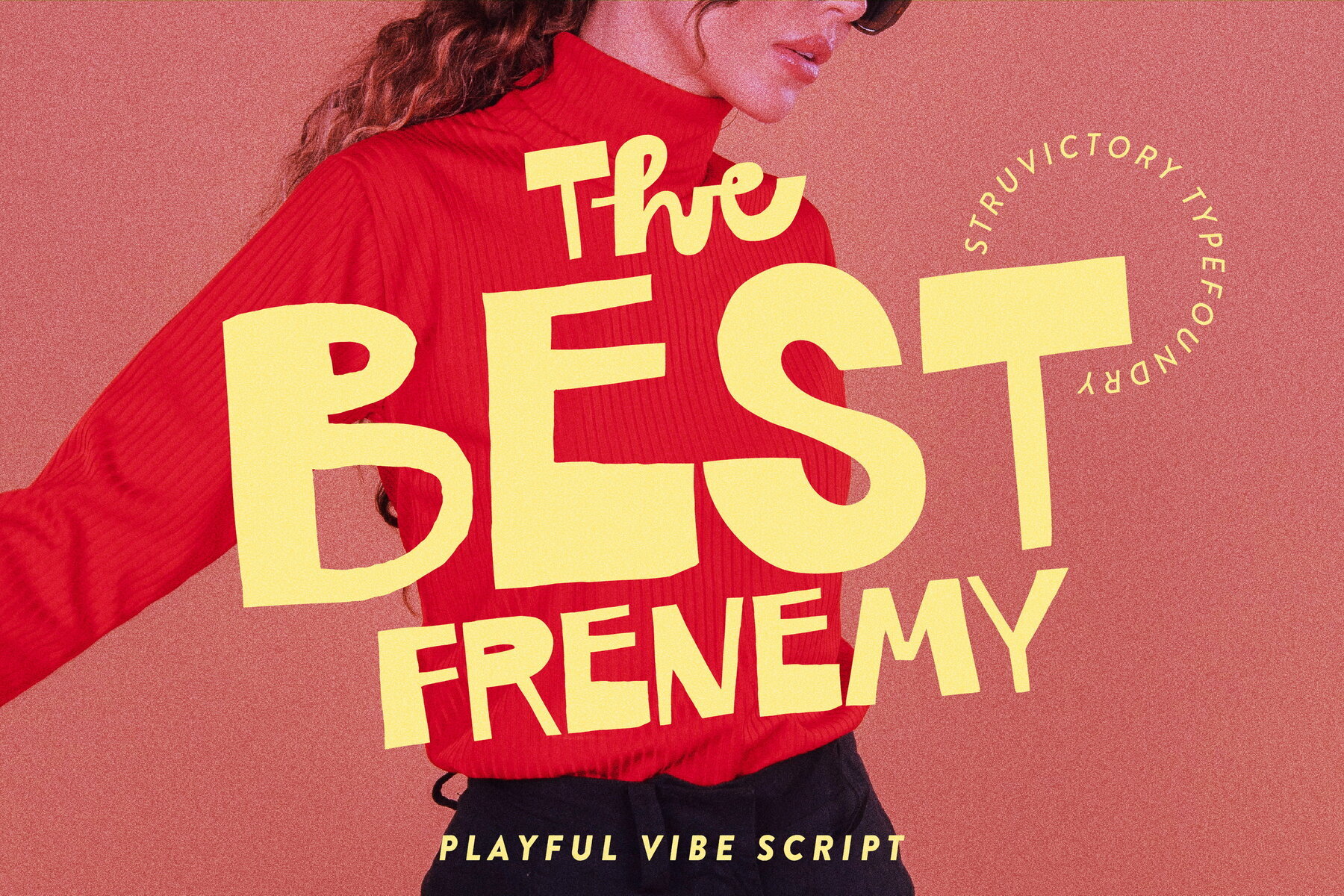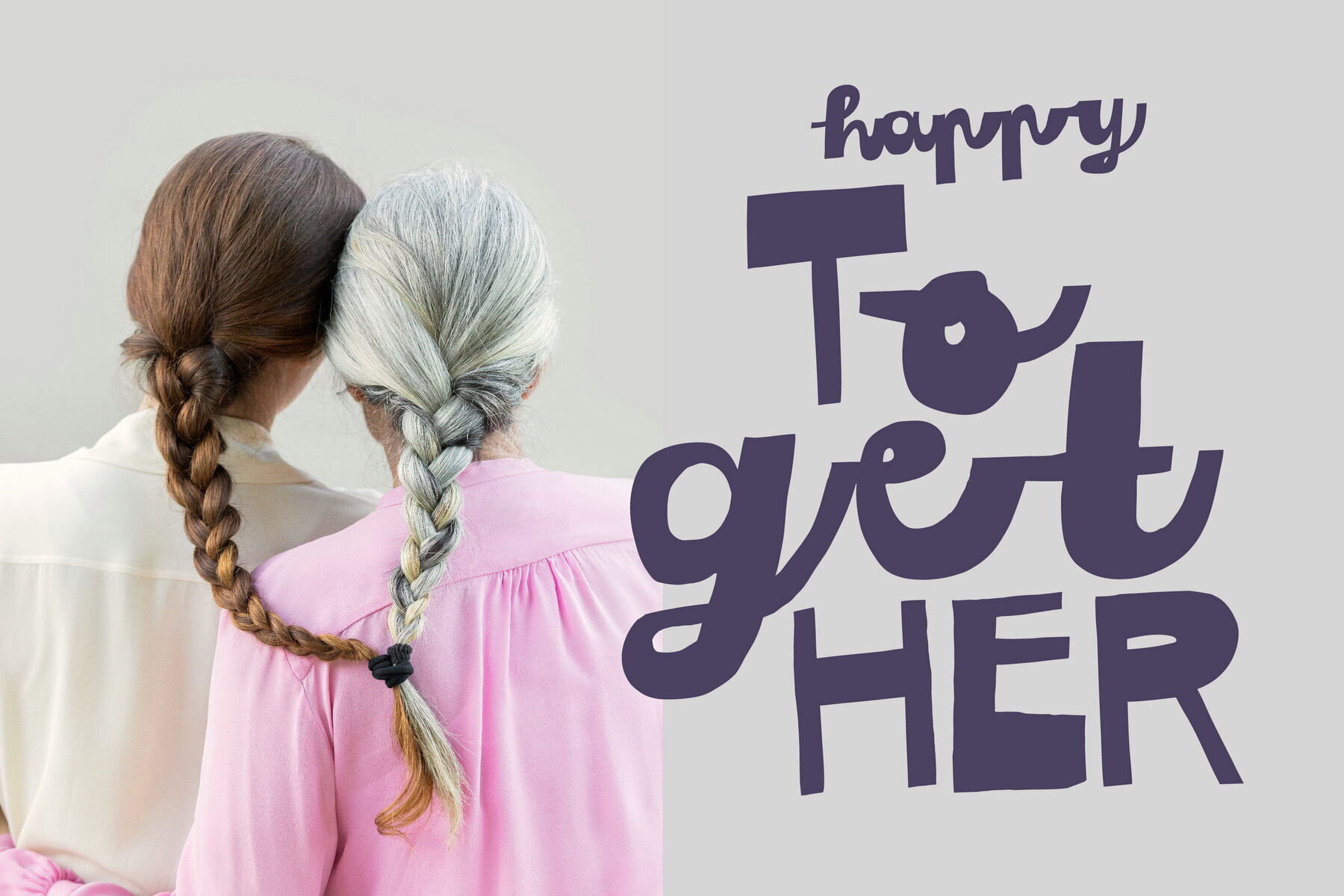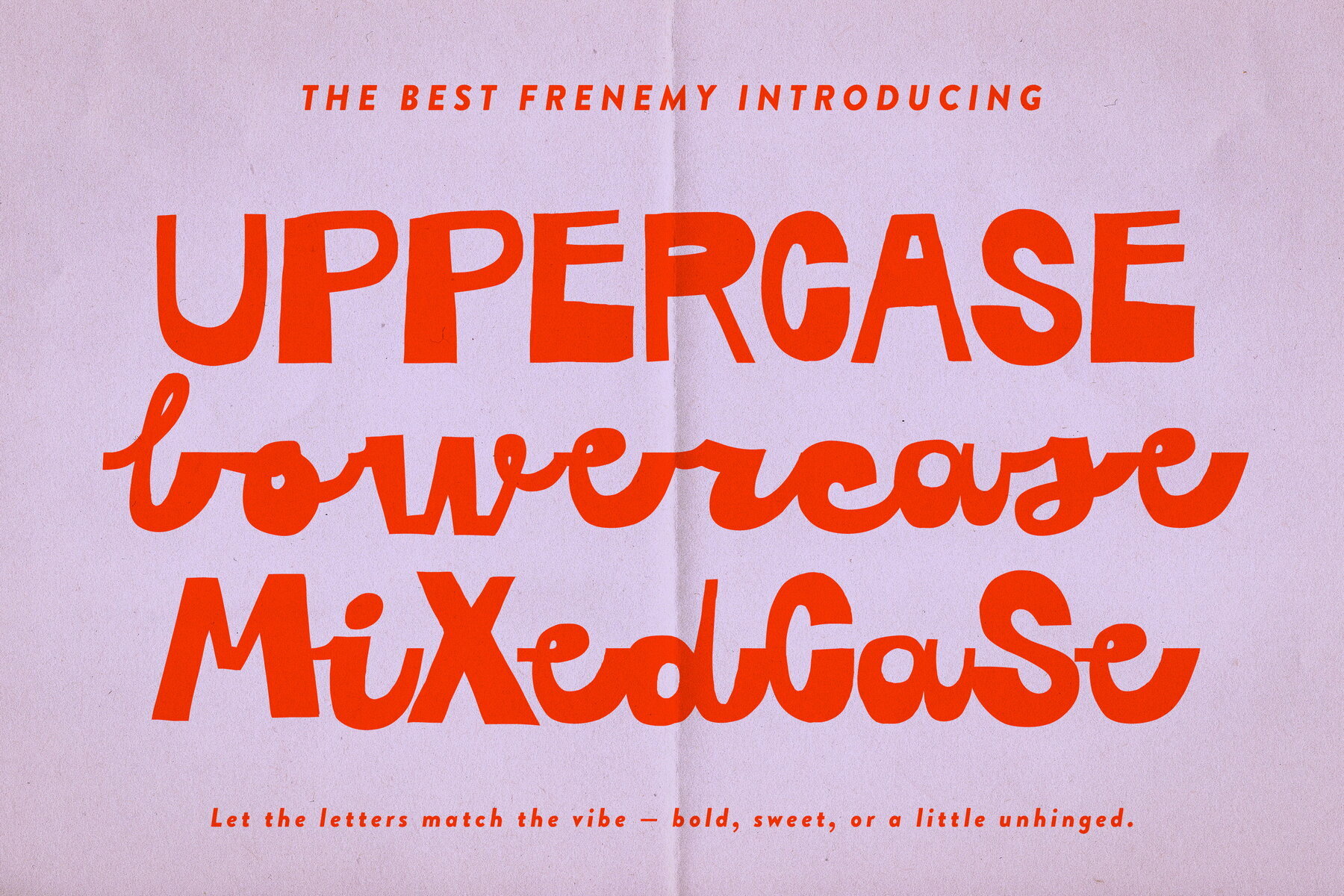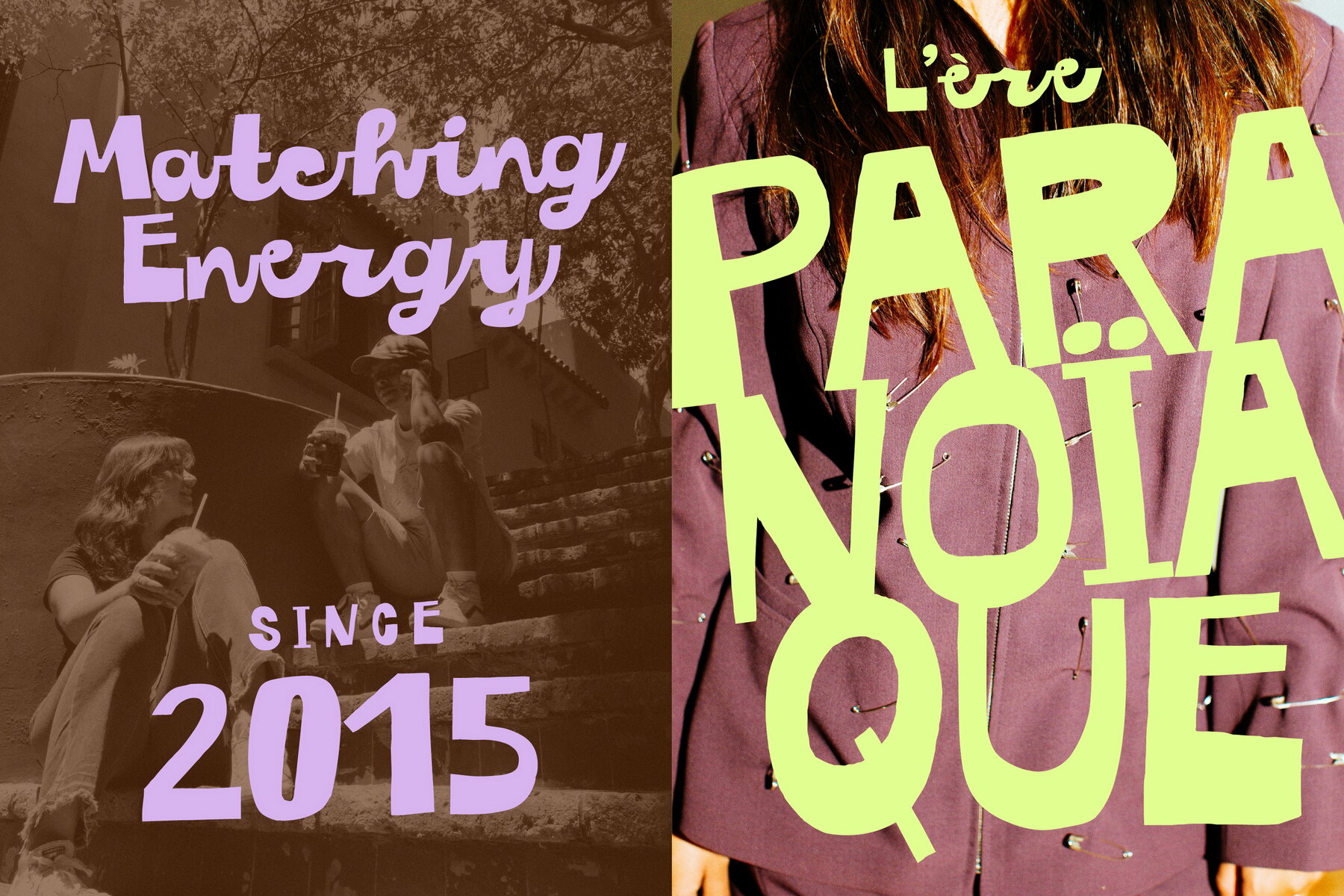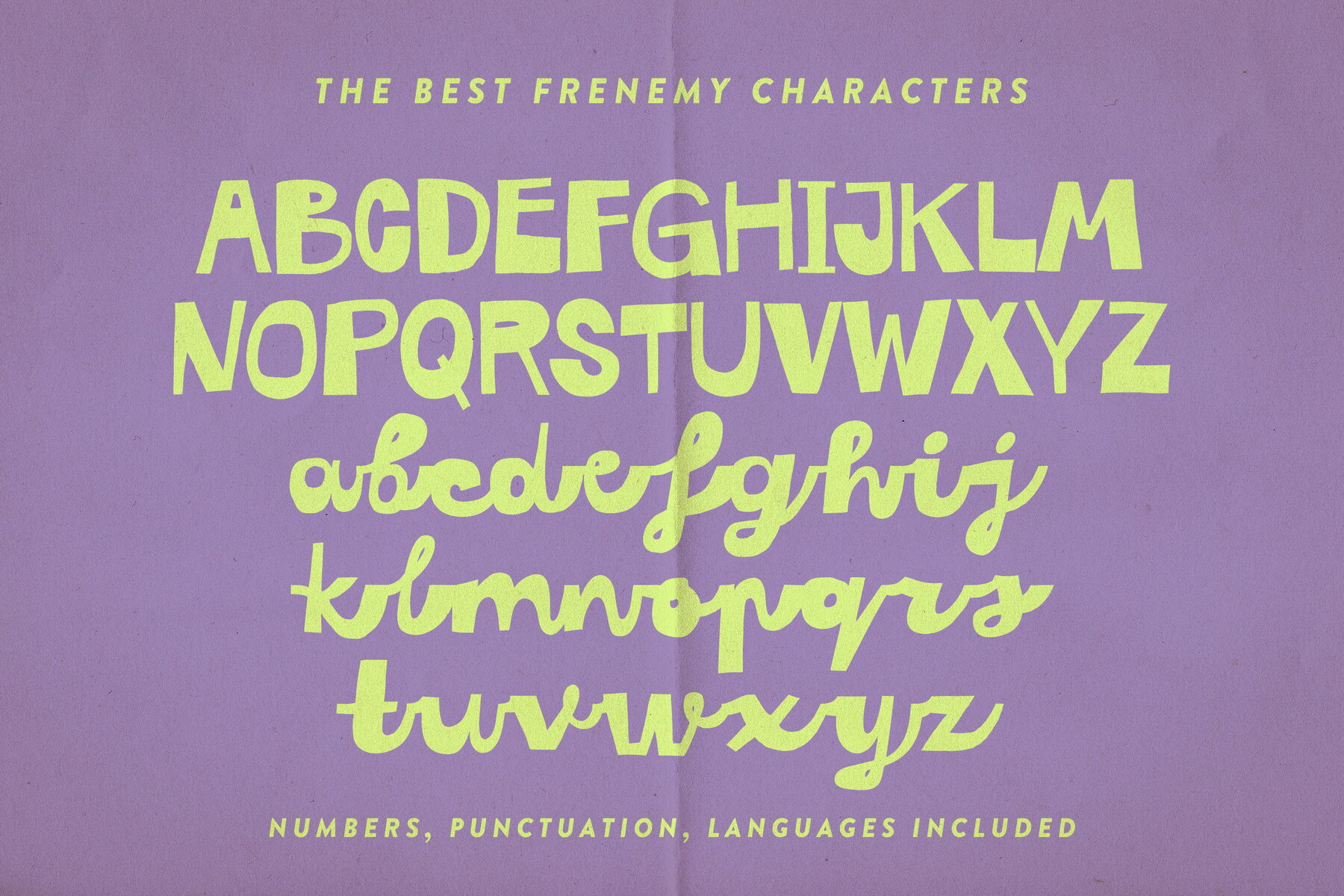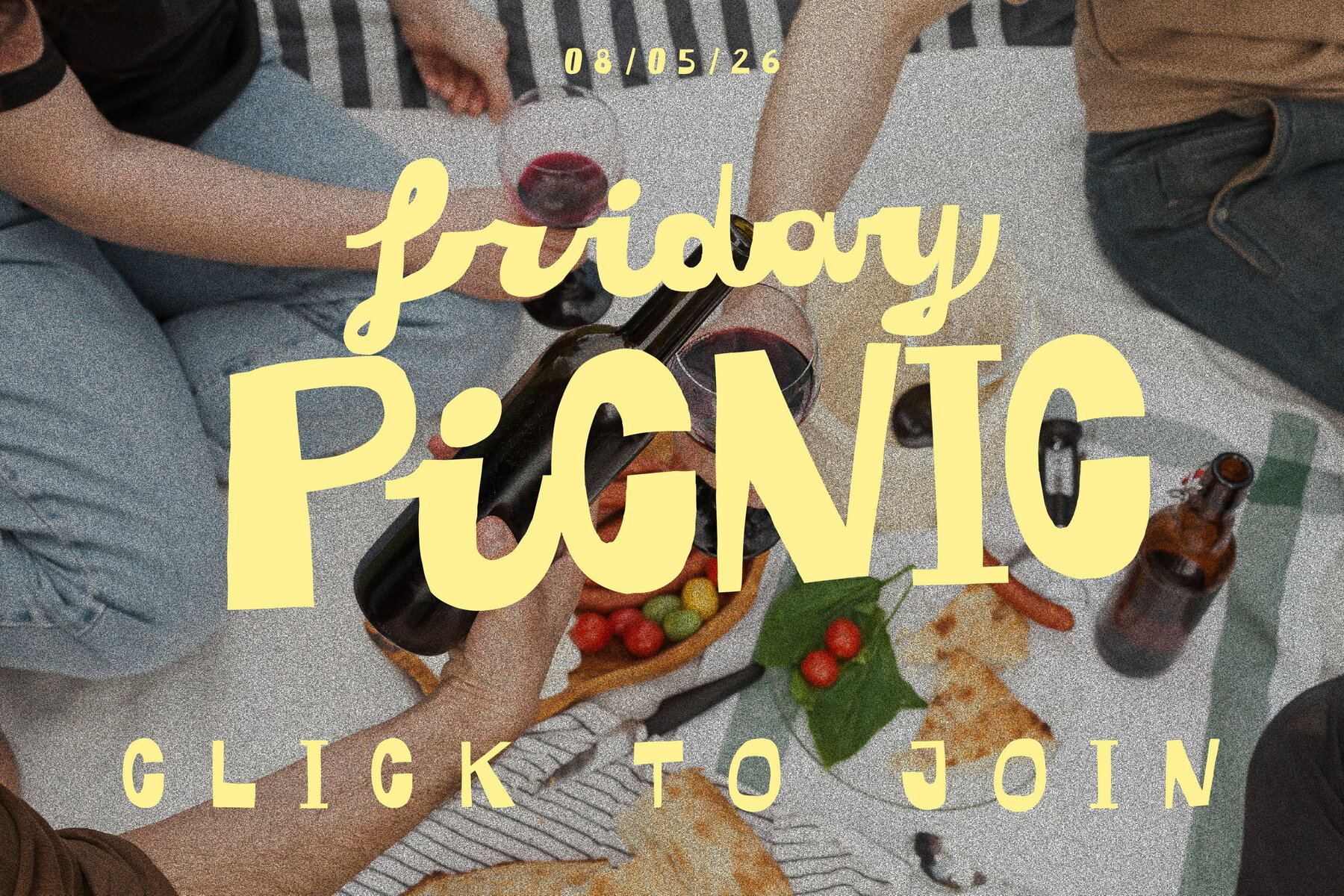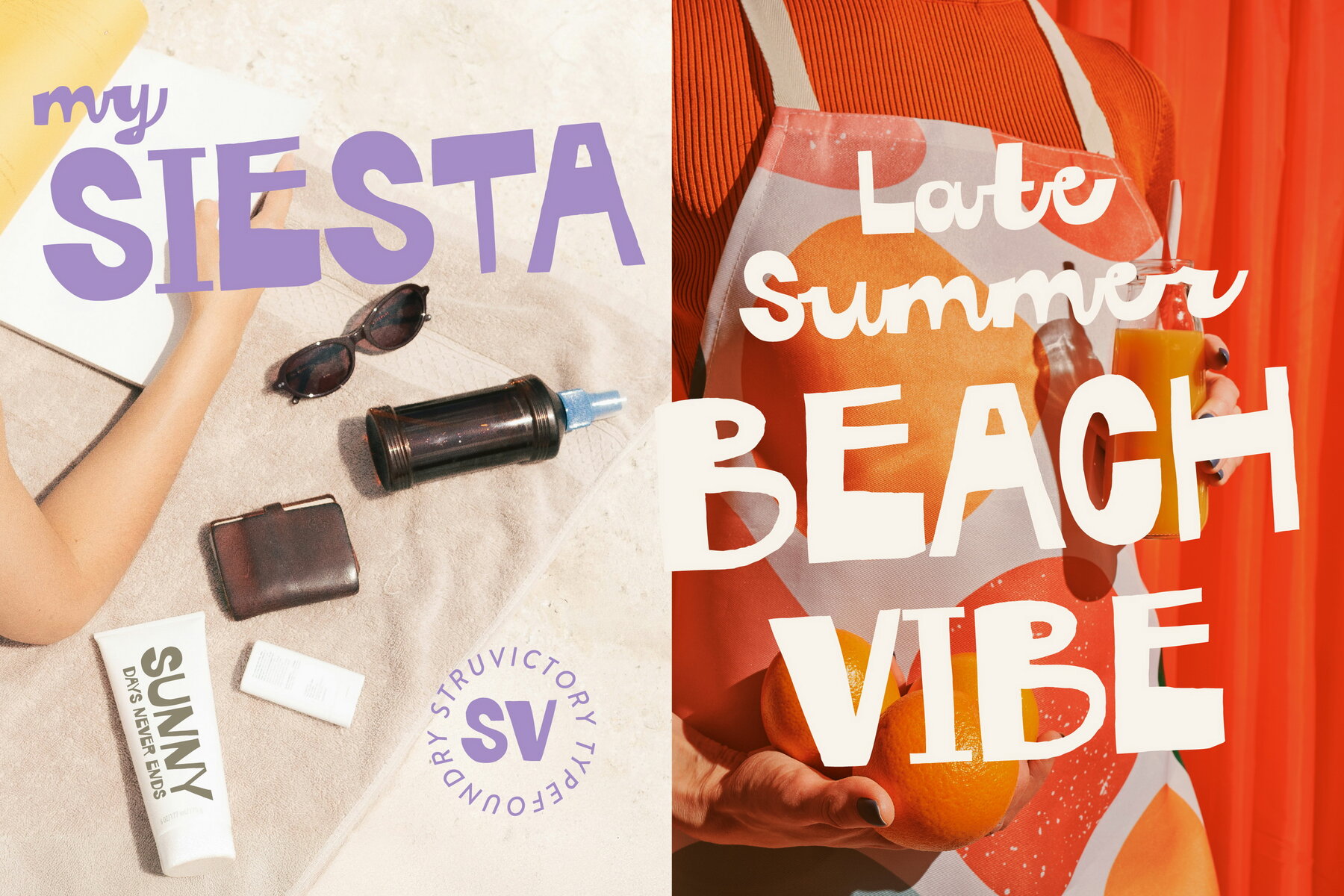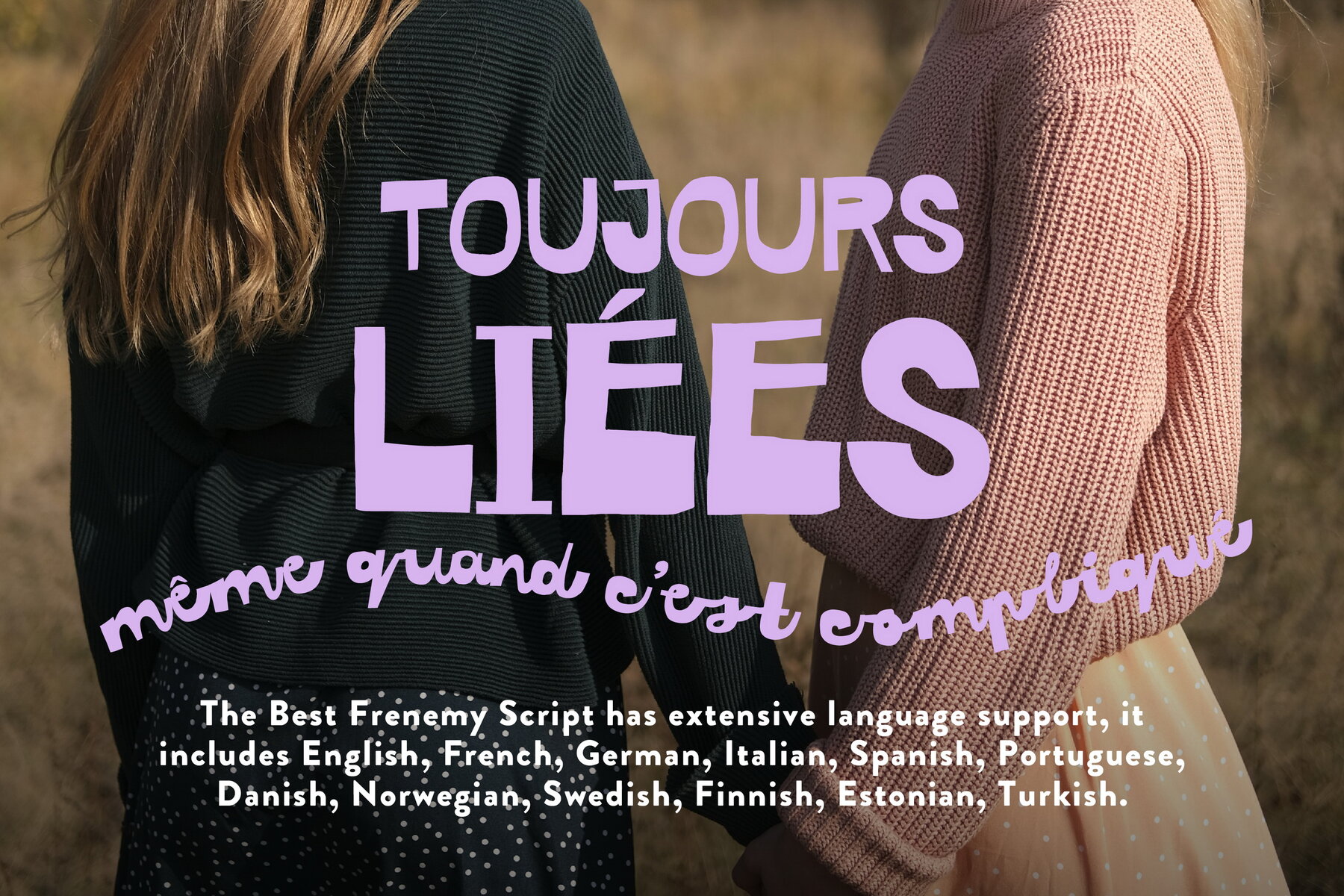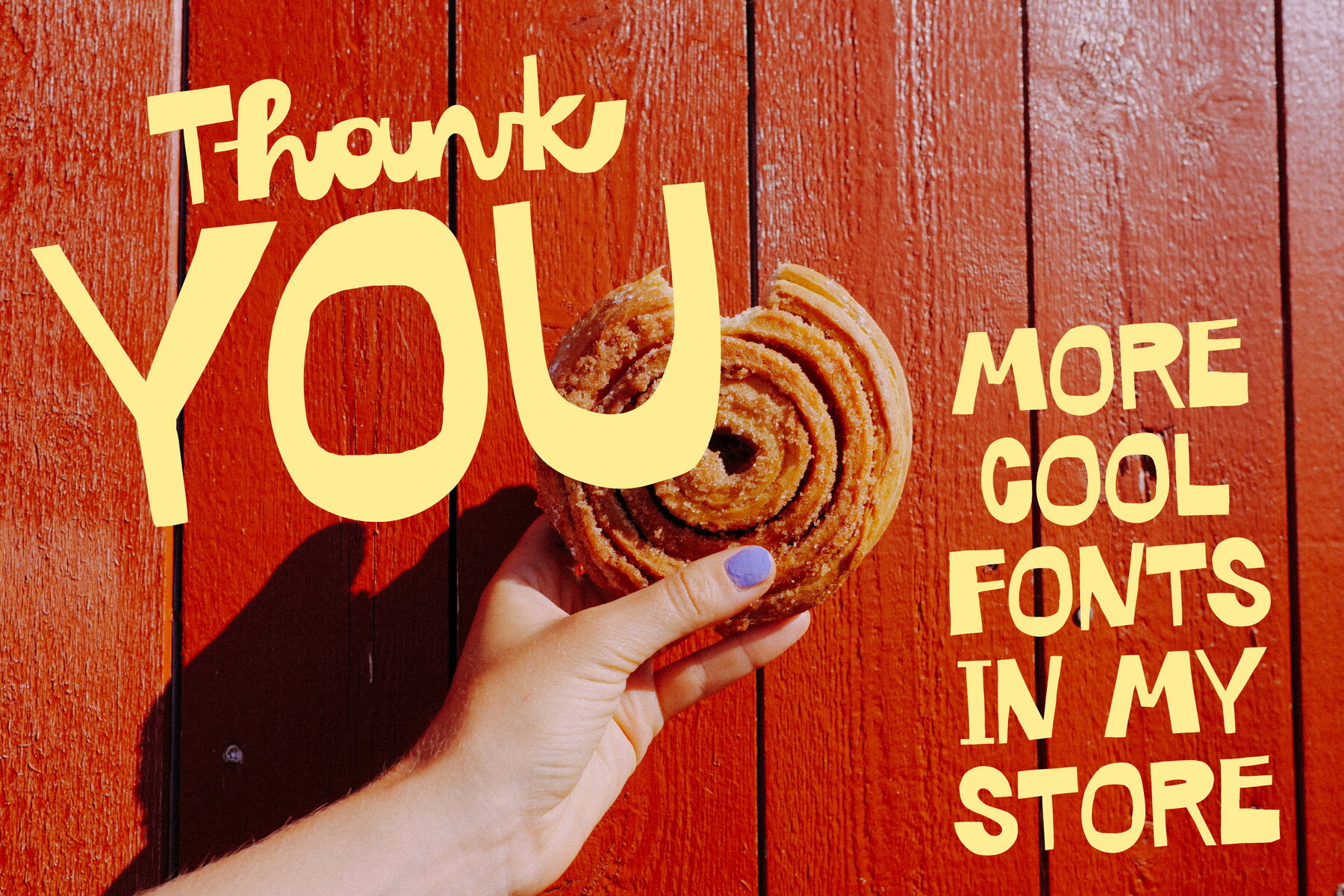
Best Frenemy Font
Best Frenemy Script
The Best Frenemy font masterfully combines a bold and playful handwritten sans serif uppercase with a lively lowercase script, perfect for injecting personality into any design. Its unique balance of bold energy and an informal twist makes it ideal for trendy branding projects. Whether you're crafting Y2K or Gen Z-inspired graphics, designing social media carousels, or creating bespoke merchandise like t-shirts and stickers, this font adds the perfect touch.The Best Frenemy: A Dynamic Handwritten Font